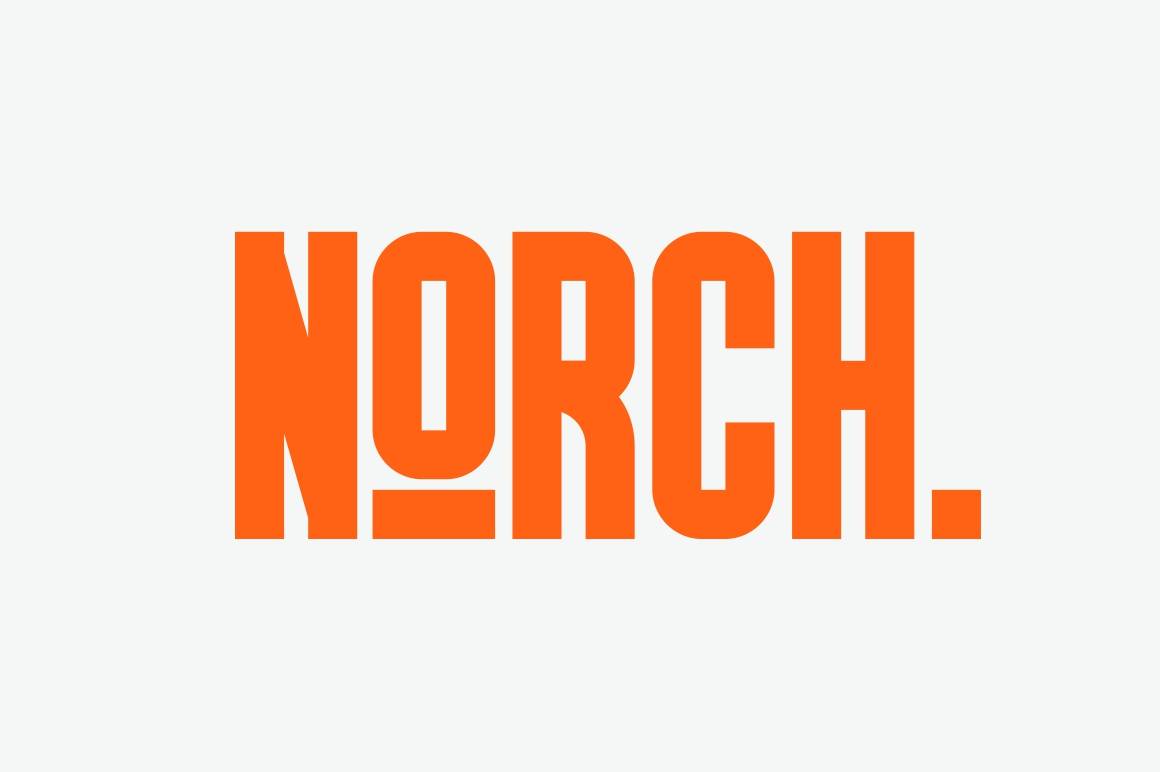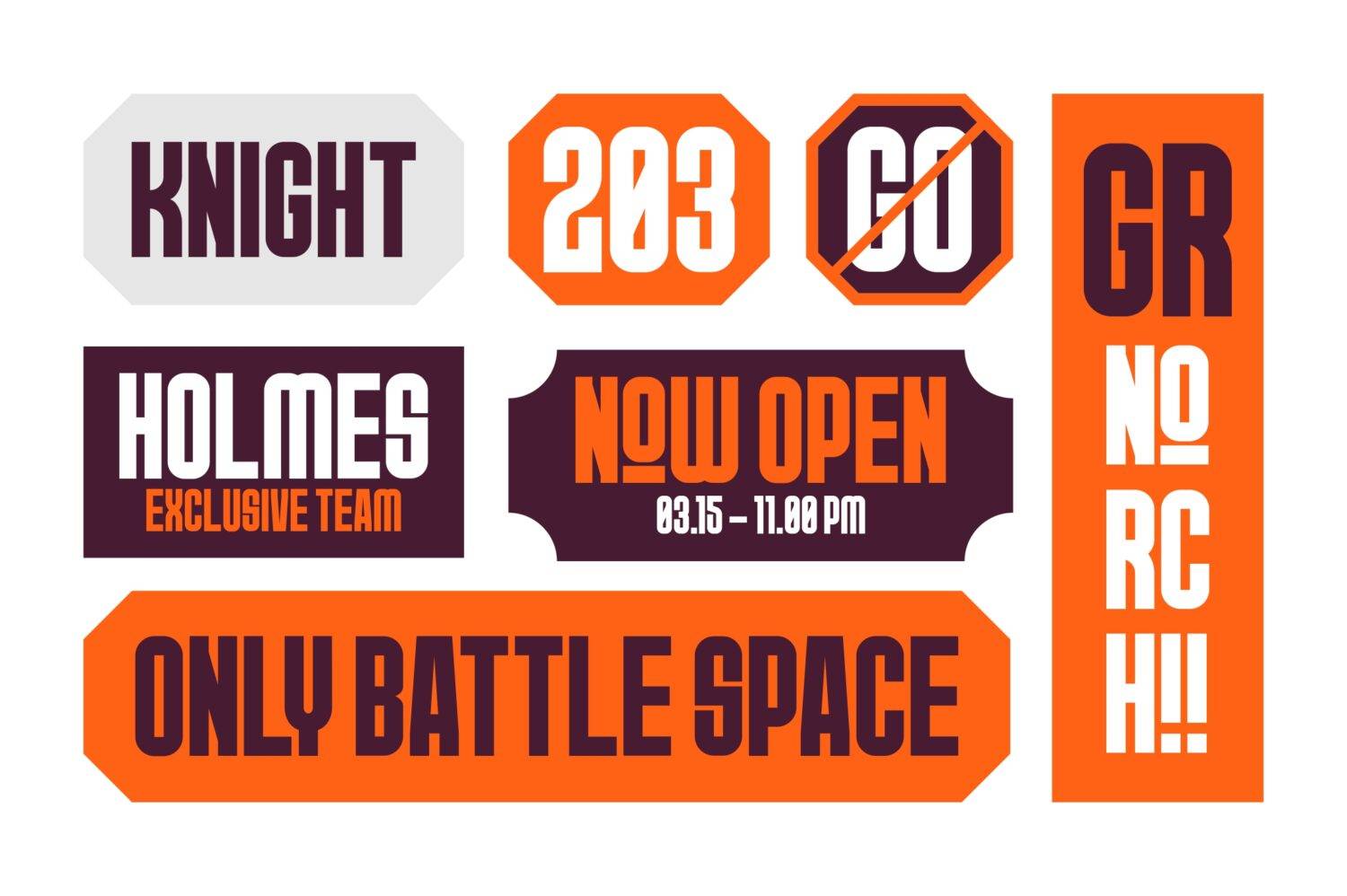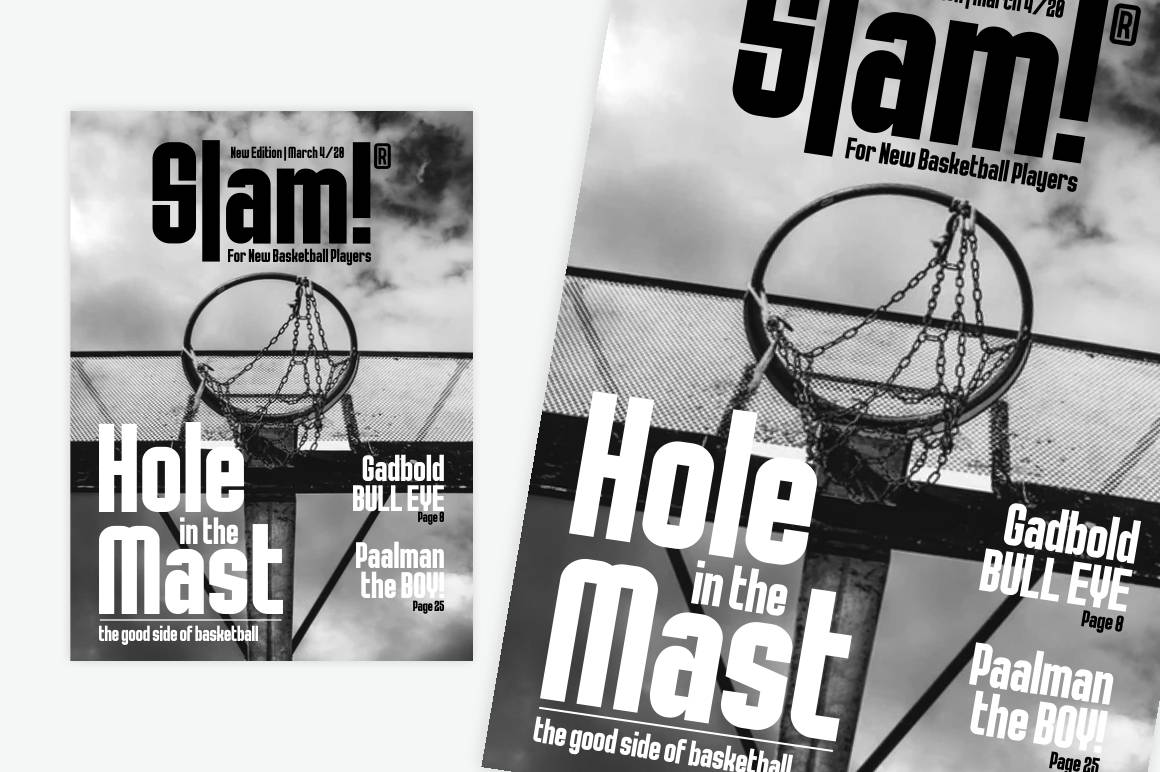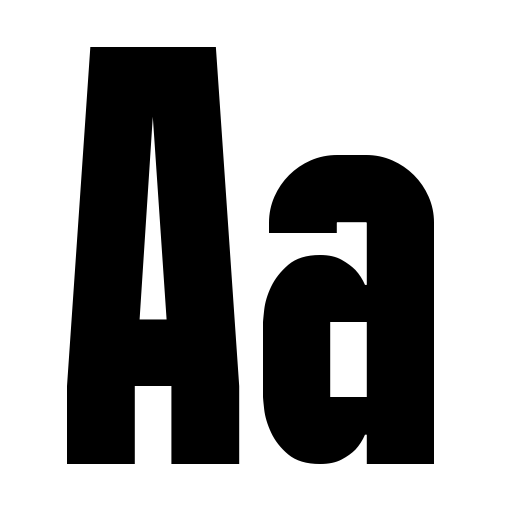
Norch is a bold, condensed sans-serif font with a strong, modern presence, perfect for commands attention in headlines and display use. Its tall, narrow letterforms and uniform stroke width give it a clean, impactful look that works well for branding and editorial projects seeking a contemporary and confident style. This font's tight spacing and geometric shapes make it ideal for impactful logos, posters, and digital interfaces where space is limited but boldness is essential.
Norch Font
About Norch Font
| Font family | Norch Font |